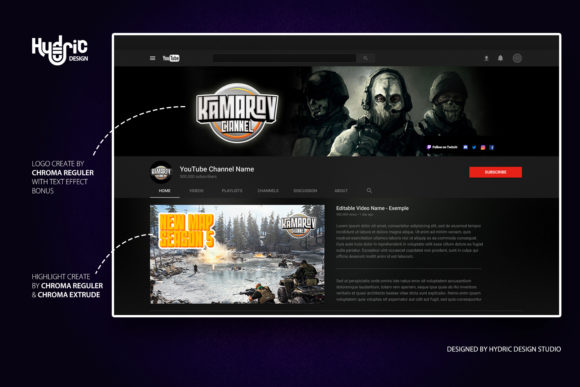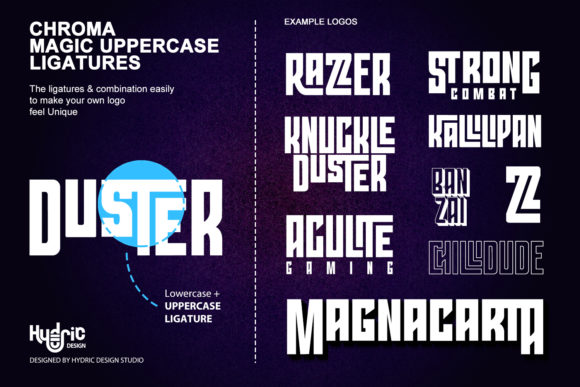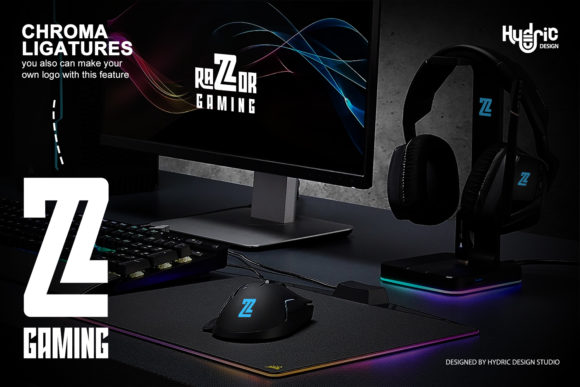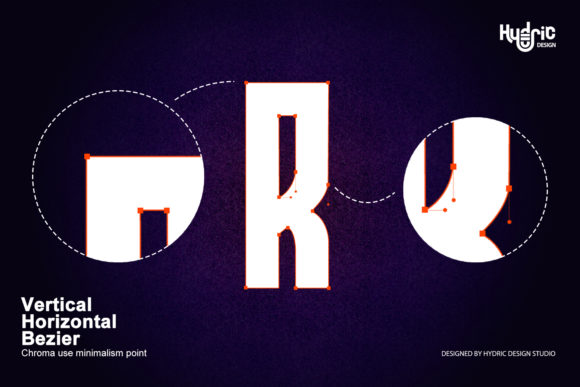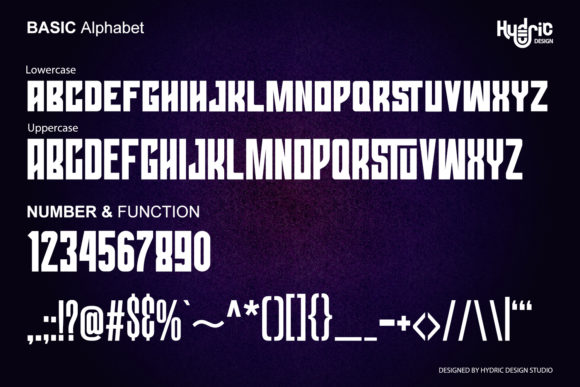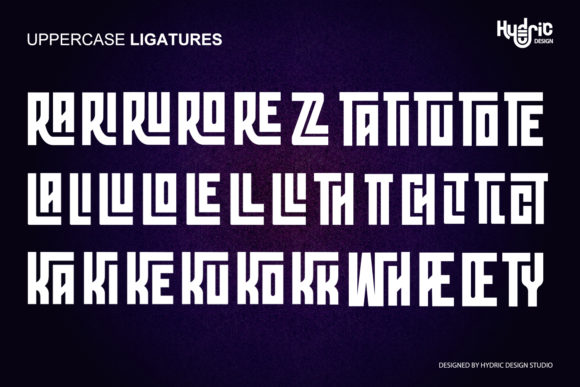
Introducing Chroma Font: The Bold and Chunky Lettered Display Font
Are you tired of using the same old fonts in your designs? Look no further! Chroma Font is here to take your creative projects to the next level. This bold and chunky lettered display font is incredibly authentic and fits a wide variety of designs, making it the perfect addition to your font collection.
What is Chroma Font?
Chroma Font is a display font that is designed to make a statement. Its bold and chunky letters are perfect for creating eye-catching headlines, titles, and captions. The font is incredibly versatile and can be used in a wide range of designs, from modern and edgy to vintage and distressed.
Key Features of Chroma Font
- Bold and Chunky Letters: Chroma Font features bold and chunky letters that are perfect for creating eye-catching headlines and titles.
- Incredibly Authentic: The font has an authentic look and feel that will add a touch of realism to your designs.
- Versatile: Chroma Font can be used in a wide range of designs, from modern and edgy to vintage and distressed.
- Easy to Read: Despite its bold and chunky design, Chroma Font is easy to read, making it perfect for use in titles, headings, and captions.
Uses of Chroma Font
Chroma Font is perfect for designers and crafters who want to add a touch of personality to their projects. Here are some of the many uses of Chroma Font:
- Logos and Branding: Use Chroma Font to create bold and eye-catching logos and branding materials.
- Posters and Flyers: Chroma Font is perfect for creating eye-catching posters and flyers that will grab attention.
- Social Media Graphics: Use Chroma Font to create bold and eye-catching social media graphics that will stand out in crowded feeds.
- Packaging Design: Chroma Font can be used to create eye-catching packaging designs that will help your product stand out on store shelves.
- Crafting Projects: Chroma Font can be used in a variety of crafting projects, such as card making, scrapbooking, and DIY signs.
Tips for Using Chroma Font
Here are some tips for getting the most out of Chroma Font:
- Use it as a Headline Font: Chroma Font is perfect for use as a headline font, so use it to create bold and eye-catching titles.
- Experiment with Colors: Chroma Font looks great in a variety of colors, so don’t be afraid to experiment and find the perfect color for your design.
- Pair it with Other Fonts: Chroma Font can be paired with other fonts to create a unique and interesting design.
- Use it in Combination with Images: Chroma Font looks great when used in combination with images, so try using it to add text to your photos and illustrations.
Chroma Font is a bold and chunky lettered display font that is perfect for designers and crafters who want to add a touch of personality to their projects. Its authentic look and feel, versatility, and ease of use make it a great addition to any font collection. Whether you’re creating logos and branding materials, posters and flyers, social media graphics, or crafting projects, Chroma Font is sure to make your designs stand out.